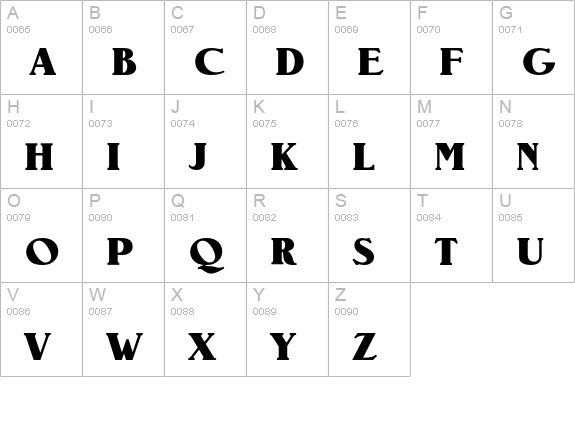
NevadaEF-Heavy is a heavy, high-impact variant in the NevadaEF typeface family \xE2\x80\x94 well suited to high-impact headlines, posters, and display advertising.
NevadaEF-Heavy font is a bold and impactful typeface that commands attention with its strong, solid letterforms. Its sturdy design makes it perfect for headlines, posters, and other display purposes where you want your text to stand out. The sharp edges and clean lines give NevadaEF-Heavy a modern and professional look that is sure to make a statement. This versatile font is free to download at FontsMarket.com, making it accessible to anyone looking to add a touch of strength and style to their designs. Whether you're working on a branding project, creating promotional materials, or designing a website, NevadaEF-Heavy is a great choice for adding a bold and eye-catching element to your work. Download NevadaEF-Heavy today and take your designs to the next level!